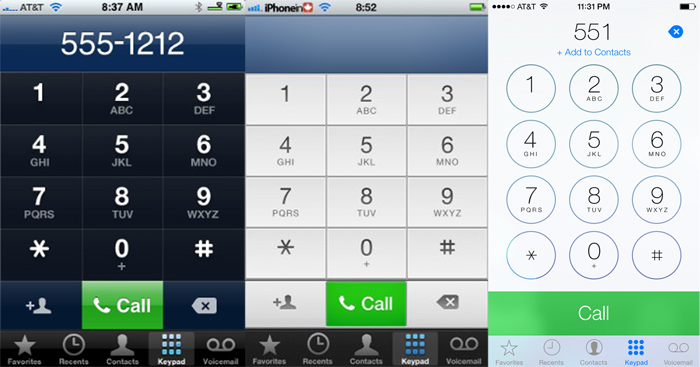
I looked around, but didn't find any threads specifically on the new font.
So my vision isn't perfect, but not bad enough that I need to wear glasses all the time. On iOS up to 6, I used to be able to do stuff like open the weather app to tell the temperature, or go into the settings app to change a few settings, without reaching for my glasses. Now with the new fonts in iOS 7, I'm finding I have a very hard time reading the new font. There was one screen that was especially bad, where I couldn't even tell there was any writing on there -- it looked like blank space until I squinted really hard, then I finally saw that there was faint thin writings against a background that was almost the same color as the font. Sorry, I can't remember where this was, if I find it again I'll post back.
Anyway, when I saw the keynote yesterday, I was impressed by the new features that has been built in, and was sure I'll upgrade --- but now, if the fonts stay like this, I may have to stay with iOS 6. (I just updated my old iPhone 4S -- my iPhone 5 is still on 6) Anybody else having similar issues?
Awwww, sad story 🙁 I don't have that problem but my visions are pretty good that's probably why... What about buying glasses especially for reading? Those 7$ ones you see at every chashier hehe would be bad if ya miss the great new os & every further update 😵
Agree. this new standard font is too thin to be usable on a small device. I can't believe they went with this.
In the accessibility options you have THREE different ways to improve the text. 🙂
And I tried all of them, but I'm not seeing much improvement. I haven't come upon again on the screen that looked blank because the font was so thin, so maybe that got fixed -- but for instance, the weather info in the notification center is still too small, so I can't make it out without my glasses. In iOS 6, we got the temperature in huge font, with a picture icon showing current weather state (if it's sunny, there's a picture of the sun, if it's cloudy there's clouds, etc). Now you get "Cloudy currently. The high will be 26. Low will be 17," in tiny fonts. And wait a minute, where's the current temperature????? 😡
agreed. the text under the icons are a bit straining to read. it'd be easier on the eyes if they were thicker like in iOS 6. don't necessarily need the shadows, just thicker.
i tried the accessibility options and it seems that those are for within an application (ex. mail - makes the text bigger or more contrast)
I'm having trouble finding how to increase font size when in Reader. in iOS6, there were icons to increase/decrease font size, but not seeing it in iOS7.
you guys need glasses
I said in my OP my eye sight isn't perfect. In case it wasn't clear, I do use reading glasses. However, in iOS 6 and earlier, I could do simple tasks like checking the time and temperature, seeing how many emails I have, or changing a few settings, without having to dig out my glasses. As Tim Cook said himself at All Things D, nobody likes wearing glasses unless they absolutely have to, and I don't like to wear my reading glasses unless I'm, well, actually READING.
I'm having trouble finding how to increase font size when in Reader. in iOS6, there were icons to increase/decrease font size, but not seeing it in iOS7.
I just noticed this too. 🙁
Yes. I have this problem. Even with my reading glasses on I'm having more difficulties reading very thin fonts. However this problem is also application specific. Some application vendors have chosen fonts which poses great challenge to people with less than perfect vision. I did have laser cataract operation before. Although I have no issue seeing distant objects, reading small thin fonts with insufficient contrast to the background is not always possible. In addition to wearing reading glasses I also use a magnifying glass to overcome this problem.
BTW, that's one of the reasons I'm still waiting for a 5 inch screen.
They need to emboss/outline the text for apps and folders on the home screen, that would help a lot. Not sure why they took this away, it makes light wallpapers (or even wallpapers with light sections) problematic.
Agree. this new standard font is too thin to be usable on a small device. I can't believe they went with this.
I agree as well. It seems like Apple is doing everything they can lately to make things harder to read (and harder to quickly find what you're looking for on a page), both on iOS and in OS X. You need contrast to see things easily, i.e. bold white on black, bold black on white etc. Not light gray on lighter gray. It's especially important when you're in your car etc, and can need to find things fast.
Here's an example of the diminishing contrast from iOS 5 to iOS 7:
jjajzi.jpg
mf5uz7.jpg
The dialer from iOS 5 is much clearer and better, imo. And everything would be easier to read if text was black(er) instead of gray.
Kids...
The new font is too thin and too hard to read.
I didn't comb every single response so I'm sorry if someone already said this but right ABOVE Accessibility there is "Text Size" in iOS 7.
I already said, back in post #7, that I tried that.
I'm sorry, but I'm getting very very tired of hearing "try the accessibility settings." That was the very first thing I did, even before I came and posted here.